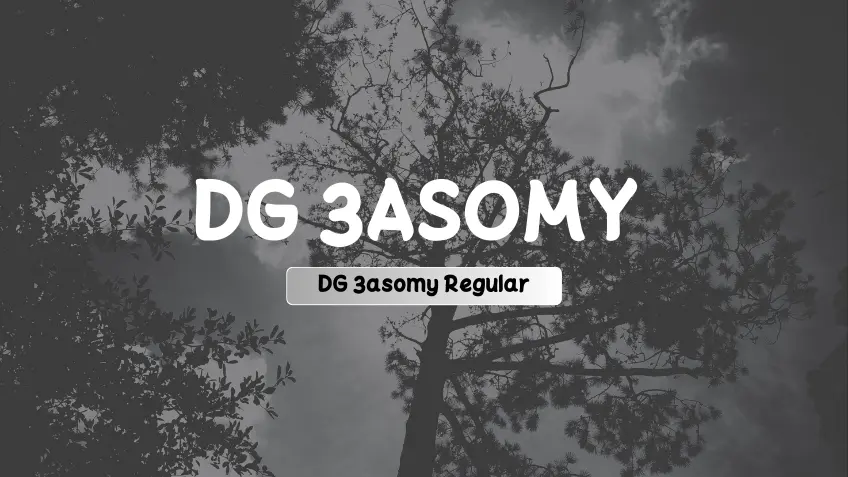
DG 3asomy Regular
The font DG 3asomy Regular, designed by Hossam El Deen Ahmed, falls under the Display, Sans Serif category & DG 3asomy font family. Its smooth, flowing letterforms make it a versatile choice for projects that require both elegance and readability. DG 3asomy is particularly well-suited for Branding, Social Media, Event Posters, Children's Media, Greeting Cards, Holiday Designs, Arabic and Arabic Script. With its balance of simplicity and decorative appeal, this font brings a polished touch to both personal and professional designs.